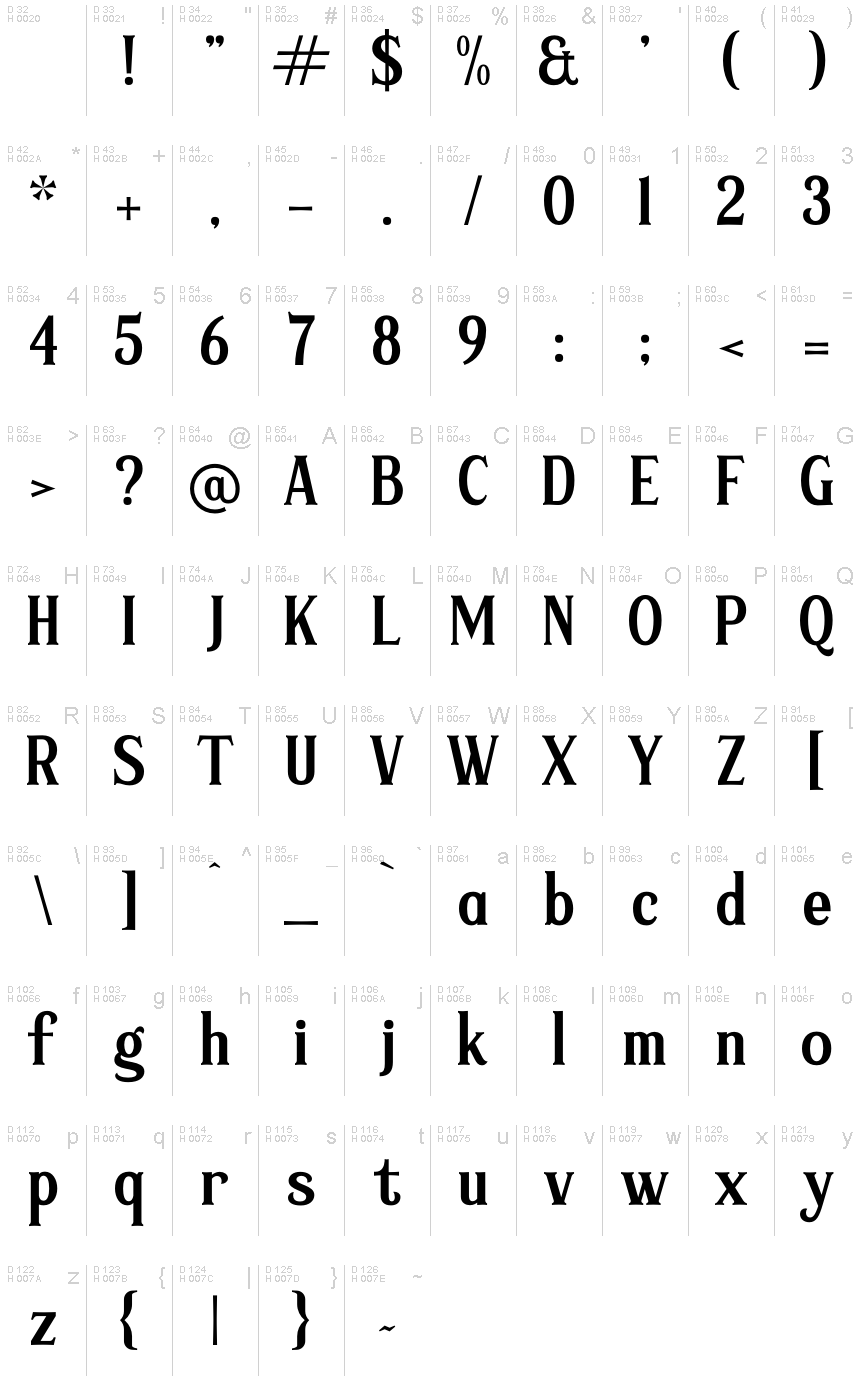
Rabilone
Rabilone, crafted by Storytype Studio, stands out as a striking serif font with a unique condensed width that commands attention. Its elegant curves and sharp serifs blend sophistication with clarity, making it an excellent choice for designers seeking to convey both refinement and authority.
Ideal for editorial design, high-end branding, and sophisticated packaging, Rabilone's distinctive style adds a touch of class to any project. The condensed nature of the font allows for efficient use of space without compromising readability or aesthetic appeal. Whether used in headlines or body text, Rabilone ensures your message is delivered with elegance and impact.